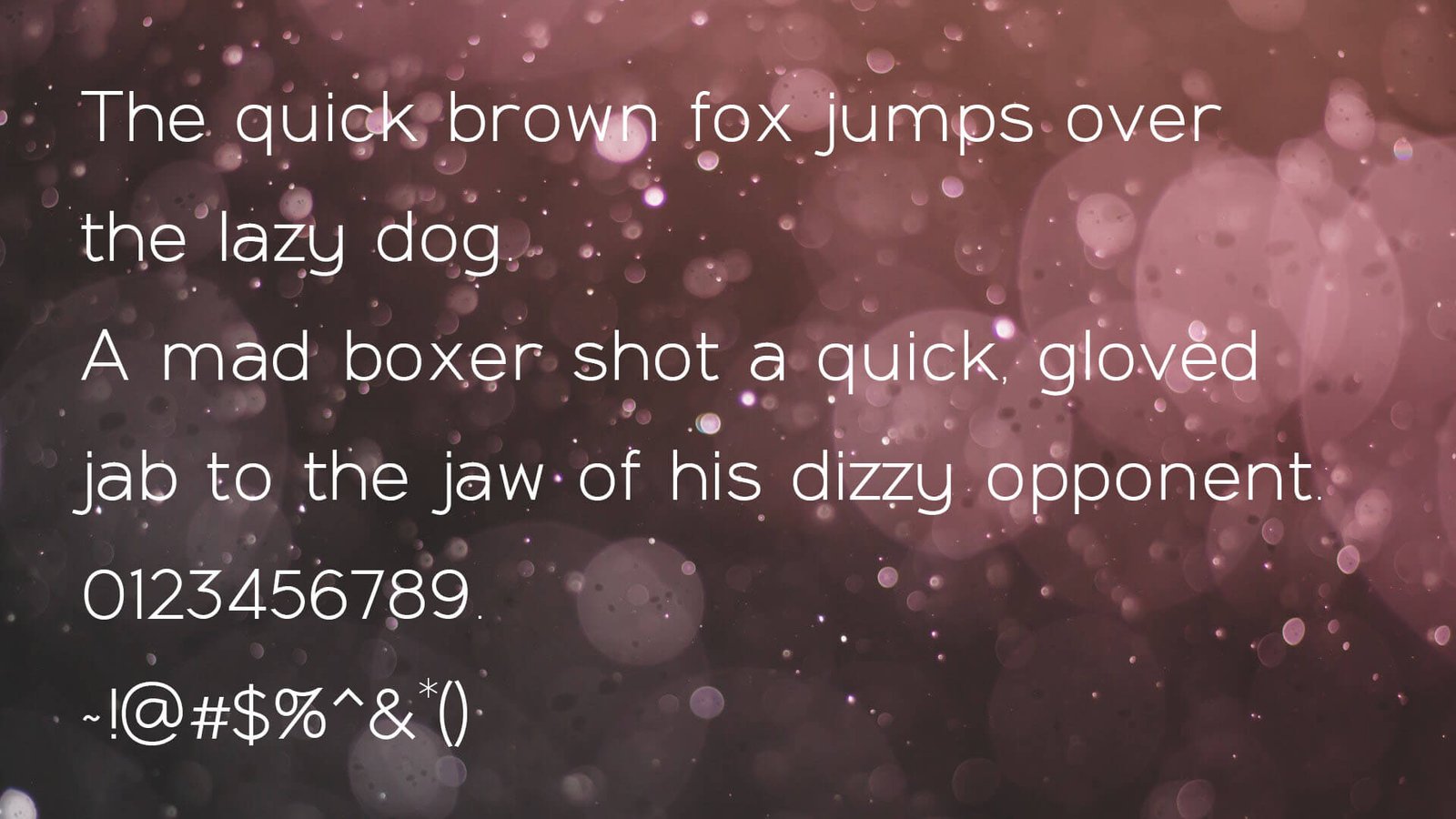
Let’s welcome the simple and clean typeface its belongs to the family of sans serif. Adget font was introduced by Adam Greasley. This font was released in the banners of Wearecolt in 2014. Adget font is very stylish lines and strong curves.
This font has contained a maximum weight of up to 300 characters including the Uppercase, Lowercase, Numbers, Basic Punctuations, Currency symbols, European characters, Many alternates, linked letters and ligatures, and many special characters added to this font.
| Name | Adget Sans Font |
| Style | Sans-serif |
| Designer | Adam Greasley |